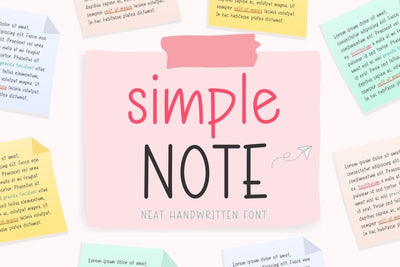
Simple Note - Handwritten Font
Simple Note is a neat and realistic handwritten font perfect for planners, Goodnotes, and Note taking Apps. Whether you're planning your week, journaling, or creating Christmas Cards.